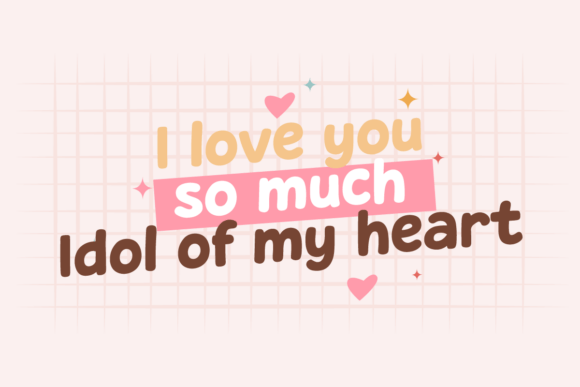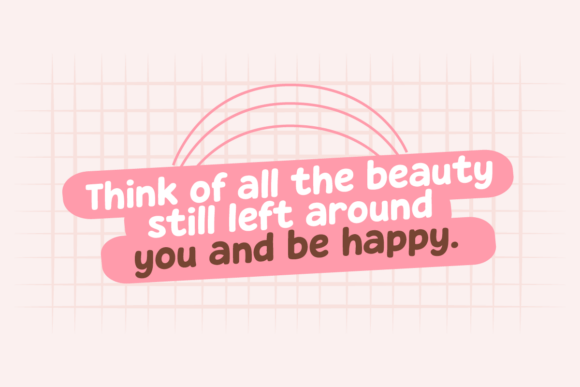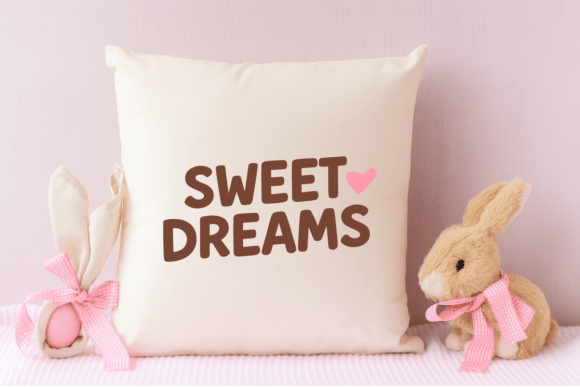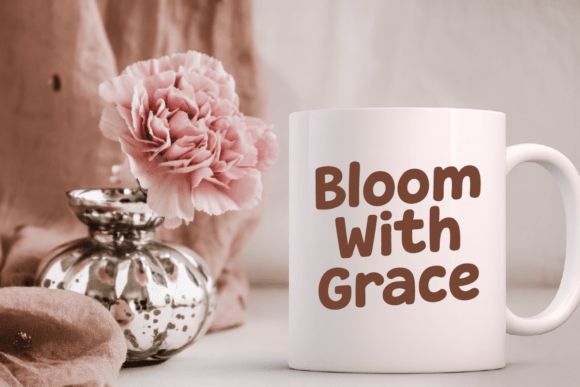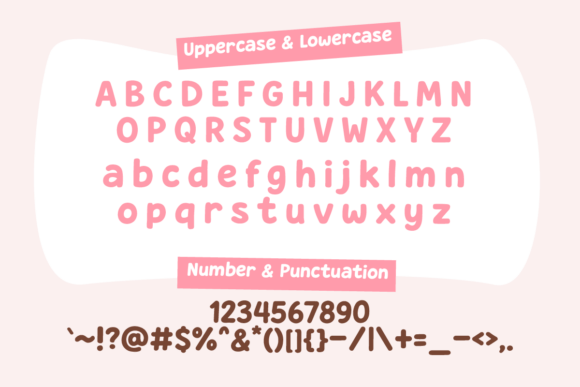
Discover Your Inner Child: The Joy of Bubbly Sans Font
Who hasn’t had a moment where they picked up a pen and paper, and let their imagination run wild, scribbling down whimsical doodles and playful phrases? For designers and creatives, those moments of unbridled imagination can be the spark that sets off a wave of inspiration. And that’s exactly where the Bubbly Sans Font comes in – a sweet, soft, and charming handwritten display font designed to bring out the kid in all of us.
With its rounded shapes and playful vibes, Bubbly Sans Font is the perfect addition to any design project where warmth and approachability are key. Its whimsical, hand-drawn feel and soft, chunky edges make it an ideal choice for projects that require a cozy, joyful, and cuddle-worthy atmosphere. Whether you’re creating engaging graphics for social media, designing nursery decor, or crafting projects like greeting cards and scrapbook titles, Bubbly Sans Font is the perfect tool to bring your ideas to life.
Bubbly Sans Font Key Features
- Font Family: Bubbly Sans is a sans-serif font family.
- Unique Characteristics: Features rounded corners, smooth curves, and an approachable feel.
- Font Weight: Available in Light, Regular, Medium, Bold, and Black weights.
Bubbly Sans Font Review
Overall, I think the Bubbly Sans Font has some great qualities that make it stand out. ✨ It’s a fun, playful font that’s perfect for creating eye-catching headlines or adding some whimsy to a design project. The bubbly, rounded shapes give it a friendly, approachable feel that’s sure to engage the viewer.
- Easy to read, even at small font sizes ✨
- Works well for titles, headings, and short blocks of text ✨
- Can be used for a variety of styles, from modern to vintage ✨
However, I do have some reservations about the Bubbly Sans Font. ⚠️ It can be a bit too playful, which may not be suitable for all design projects. It may also get lost in crowded text or when used in small quantities. Additionally, the font’s rounded edges can make it difficult to pair with fonts that have sharp, angular shapes.
- May not be suitable for formal or serious designs ⚠️
- Can get lost in crowded text or small quantities ⚠️
- Difficult to pair with fonts that have sharp, angular shapes ⚠️
Overall, I think the Bubbly Sans Font is a fun and creative option for designers who want to add some personality to their projects. While it may have some limitations, it’s definitely worth considering for the right project.
Tips for Getting the Most Out of Bubbly Sans Font
For the best results, pair Bubbly Sans Font with a bold or sans-serif font for contrast. Use it for headings, titles, and short blocks of text. Avoid using it for large blocks of text or body copy.
Bubbly Sans Font is ideal for:
– Marketing materials
– Digital signage
– Editorial design
Alternatives to Bubbly Sans Font
Great Vibes Font is a modern sans-serif typeface that is perfect for digital designs, especially for headings and titles. It’s ideal for creating a fun and energetic atmosphere, similar to Bubbly Sans Font. However, Great Vibes Font is more versatile and suitable for a wider range of projects, including branding and packaging.
Comparison to Bubbly Sans Font: Great Vibes Font is more polished and refined, with a slightly more geometric shape. It’s a great choice for designers who want a modern sans-serif font that still conveys a playful vibe.
Lato Font is a clean and elegant sans-serif typeface that is perfect for body text and headings. It’s ideal for creating a professional and modern atmosphere, similar to Bubbly Sans Font. However, Lato Font is more subtle and versatile, making it suitable for a wide range of projects, including corporate branding and websites.
Comparison to Bubbly Sans Font: Lato Font is more subdued and less playful than Bubbly Sans Font, but still conveys a sense of modernity and sophistication. It’s a great choice for designers who want a clean and elegant sans-serif font that still reads well in small sizes.
Q: What is the recommended font size and line height for the Bubbly Sans Font?
For optimal readability, we recommend using a font size between 12-24 points for body text, with a line height of at least 1.2-1.5 times the font size. This will help ensure that the text is clear and easy to read, while also maintaining the font’s playful and approachable feel.